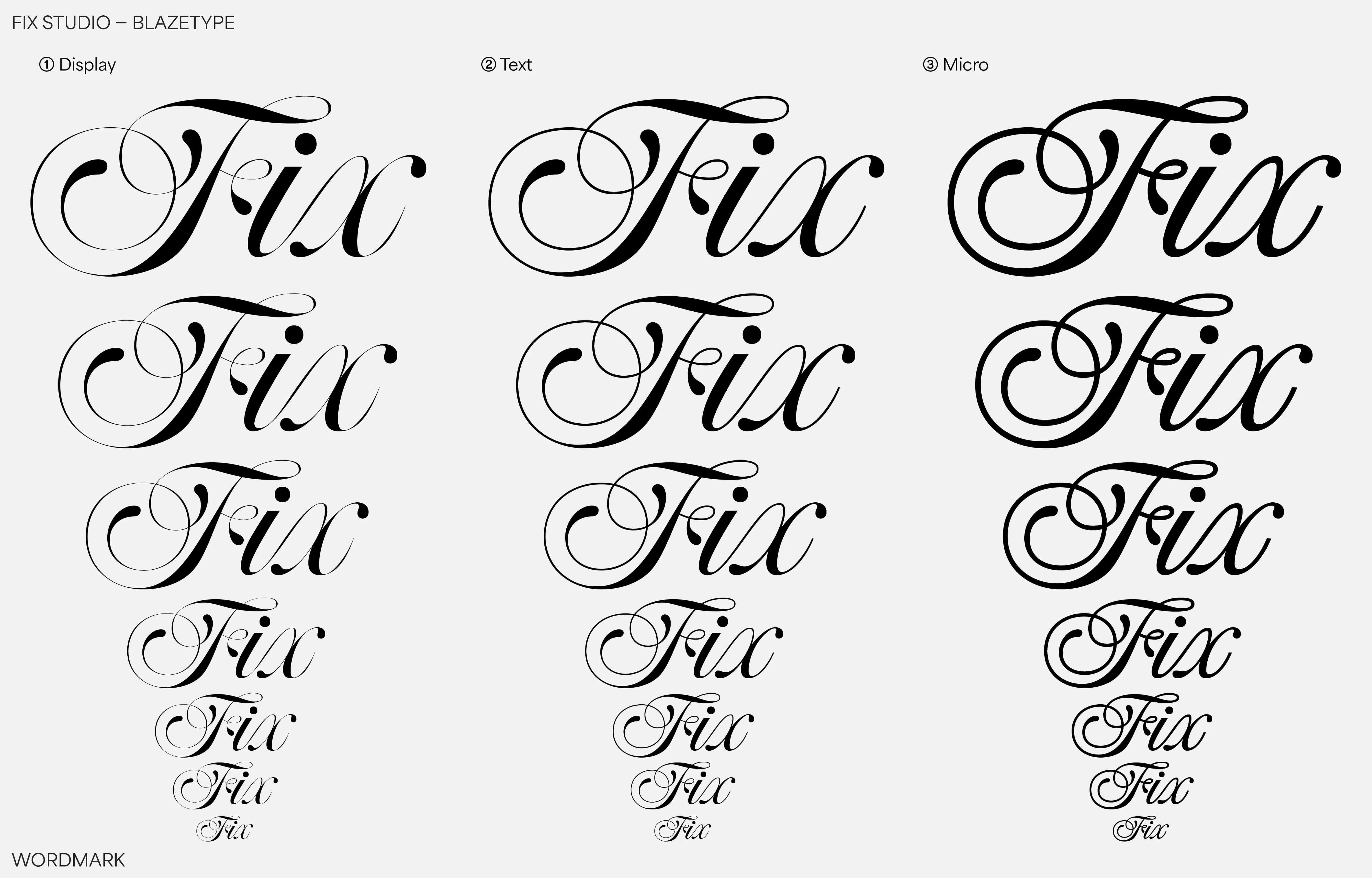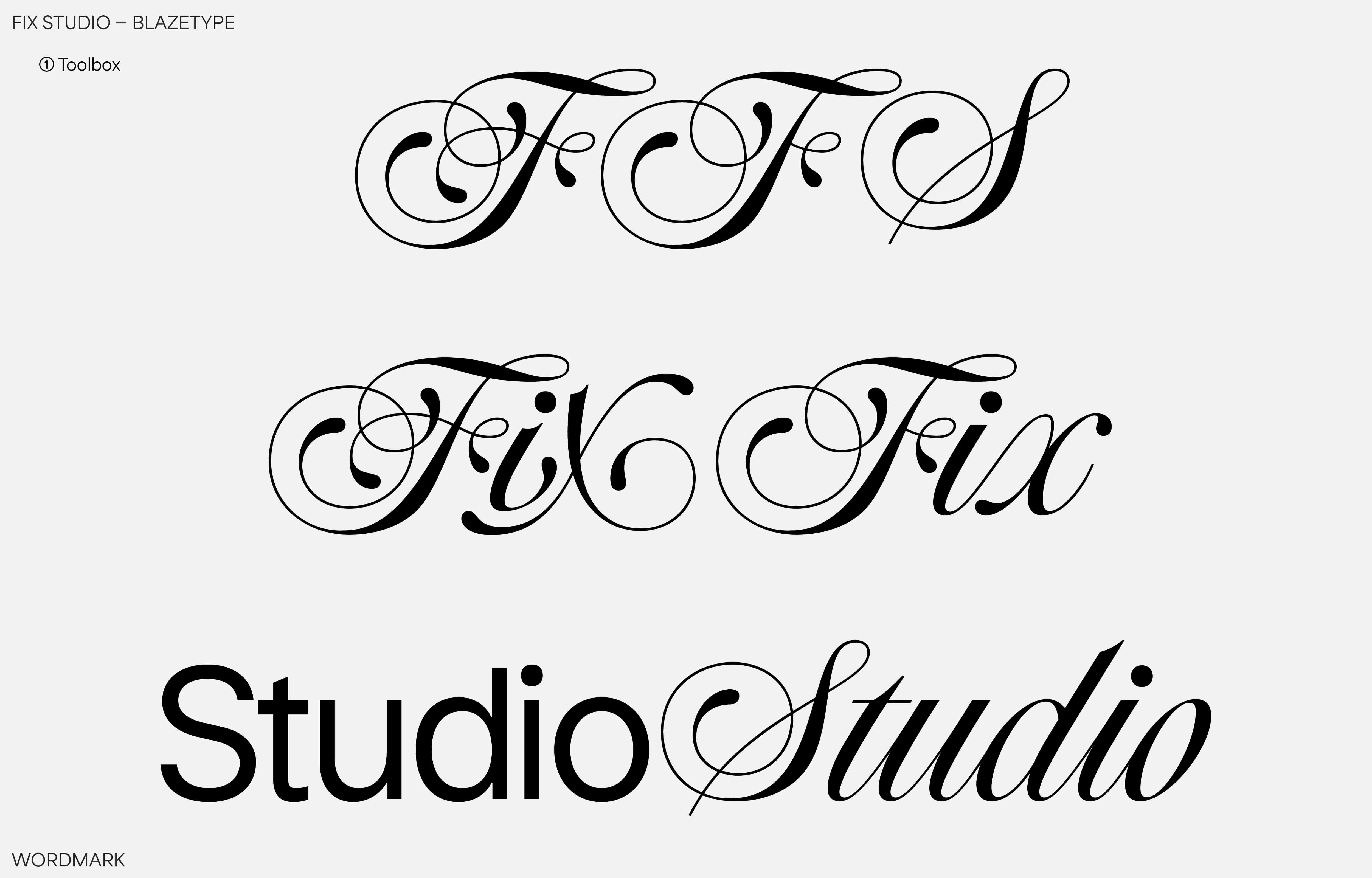
Why tailored font is awesome for brand identity?
Introduction
Let's leave our modernist colleagues behind and concentrate on an activity that is still too little known, and therefore too little exploited.
Massimo Vignelli (1931-2014) used to say in his book The Vignelli Canon (2010) that very good typefaces were not legion and that the professional graphic designer could reduce his typographic palette to a handful of typefaces definied as timeless:
"Besides those already mentioned, I can add Optima, Futura, Univers (the most advanced design of the century since it comes in 59 variations of the same face), Caslon, Baskerville, and a few other modern cuts."
Other great masters, probably more pedagogical, affirmed that a typeface is comparable to a voice and its intonation. Now, if we take up Vignelli's thought, all the big companies could enjoy communication with superb but indifferent voices. In short, Coca-Cola as well as Pepsi would use the same actor for their radio spots and we would have to wait for a jingle or the final slogan to guess who would be the advertiser. The absurdity of such a practice is not surreal. The global internationalization at the end of the 1960’s pushed the companies to use Sans serif fonts as a culturally neutral typography, when it was not almost exclusively Helvetica. The graphic landscape became so monotonous that any design that was significantly more expressive than a Zurich poster seemed to be revolutionary if not avant-garde.
History shows us that to forge one's identity, one must be able to define oneself before wanting to resemble one's competitor. However, agencies specialized in graphic identity must work on each case as an indivisible whole: from the web to the mobile apps, from the advertising poster to the promotional leaflet, each communication tool is based on a typographic text. And it is this rudimentary tool, this brick, that composes the unsuspected architecture of your communication.
Thus, when the client has the ability and desire, the creation of a dedicated typography will establish an original graphic identity.
The custom-made brand identity
Everyone can admit it: there is a difference between wearing a ready-to-wear shirt and wearing a made-to-measure shirt. With the same quality of raw materials as well as finishing touches, the made-to-measure cut brings an unparalleled comfort as well as allowing to optically correct the body in order to make it thinner, squarer, in short: to your image.
Custom type design is the customization of typography. It consists in the creation of a typography dedicated to an exclusive use for a company, a brand or a product.
Massimo Vignelli did not criticize this practice of design, but the quality of it and the financial advantage that some agencies get from it.
But like all good designs, there is a difference between doing a good job and doing a well done job.
Fix Studio, custom logo design. A well tailored font with different axis to display perfectly on all types of screens.
Identity interest: brand consistency
Custom type is primarily intended to be useful before being differentiated for the final client. Thus, the first step is to clearly define the reasons for the typeface to be created.
Logotype/Wordmark: logotype typography, is often more expressive than titling or commercial typography. It requires a smaller set of glyphs designed since punctuation or diacritical characters are sometimes optional. On a screen or printed on a poster, the letters need to fit the medium. More than a graphic design task, it’s what type designers are doing everyday. Finally, the weight and even the glyphset (uppercase, lowercase, etc.) can be unique. In this case, the font will only serve to homogenize the different logos used within the same company. The most obvious example is the acquisition by a parent company of a new subsidiary and the harmonization of the new identities acquired.
VolleyBall World is a custom font designed for Volleyball World company, commissioned by Ogilvy Amsterdam Lab, operating like a logo and for headline/display uses for this special identity.
Titling/Headlines/Display: As for the title, it consists of the main voice of the company, the one that will cover the largest graphic surface on all media. It will carry the tone and values of the company while keeping a certain restraint in order to be readable. Variations in weight or inclination are possible in order to become a complex type tool: rich in solutions and expressiveness. Finally, international communication will require the creation of a large set of characters to cover many different languages.
Lokki is a custom font designed only for the brand names of a new beverage. The glyphset is limited but the whole job fits the task.
Body Font: this is the richest and most complex case, the one that requires the most elaborate work. Here, the fonts will be used in small sizes and will be more read than looked at. Thus, the designer delivers a subtle work where the imperceptible details for the neophyte can be difficult to perceive and therefore understand. However, it is this subtle but present work that will be anchored in the memories of each consumer. Typeface & font development can take many months, as the scope of the work can be quite massive: several weights, several styles, a large character set, open-type functions, ligatures or contextual variants. It is no longer a tool but a heavy artillery dedicated to communication.
Hall & Partners, here what is the perfect body font designed for a unicase company. A sans serif, composed of 3 weights and italics, suitable for body text but also titling.
Moreover, whether it is for an internal graphic creation, by a specific agency or by a network of external communicators, the solution is simple: a graphic charter defines the uses according to the contexts and the typographies are provided on a web server to each provider. There is no need to question the choice of typography since it bears the brand name and appears to be obvious.
Fix Studio, custom logo design. A well tailored font with different axis to display perfectly on all types of screens.